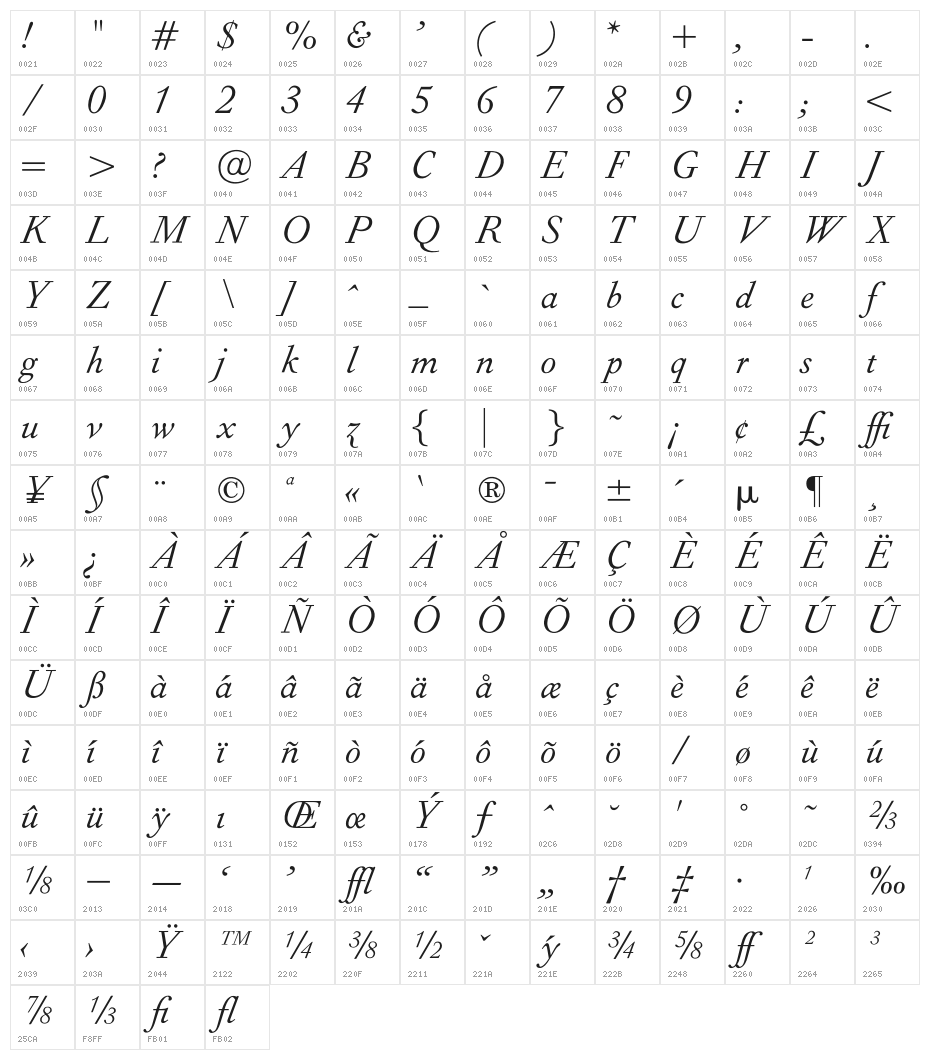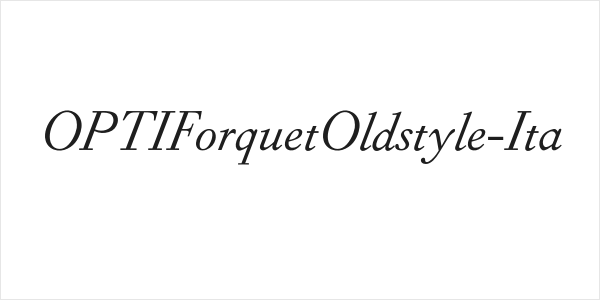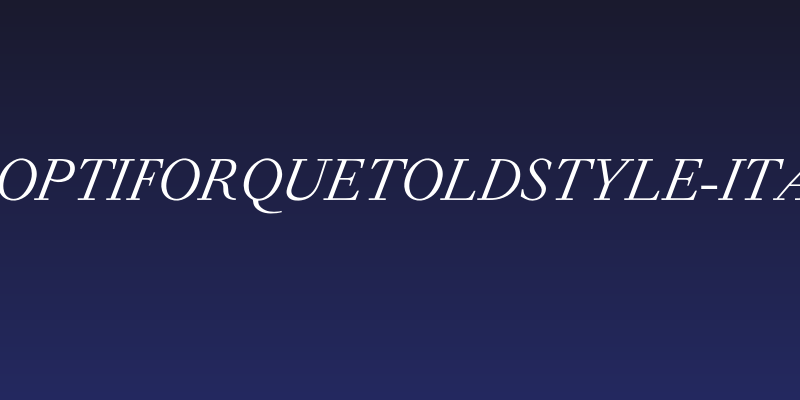
OPTIForquetOldstyle-Ita Font
OPTIForquetOldstyle-Ita Description
This elegant serif font features a classic old-style design with a sophisticated italic slant. The characters exhibit a refined and graceful appearance, characterized by high contrast between thick and thin strokes. The serifs are delicately crafted, adding a touch of tradition and formality. The font maintains a harmonious balance, making it suitable for conveying a sense of timeless elegance. Its italic nature enhances the fluidity and dynamism of the text, making it ideal for projects that require a touch of sophistication and class.
| Proposed Projects | Ideal for use in formal invitations, editorial design, luxury branding, and classic book typography. |